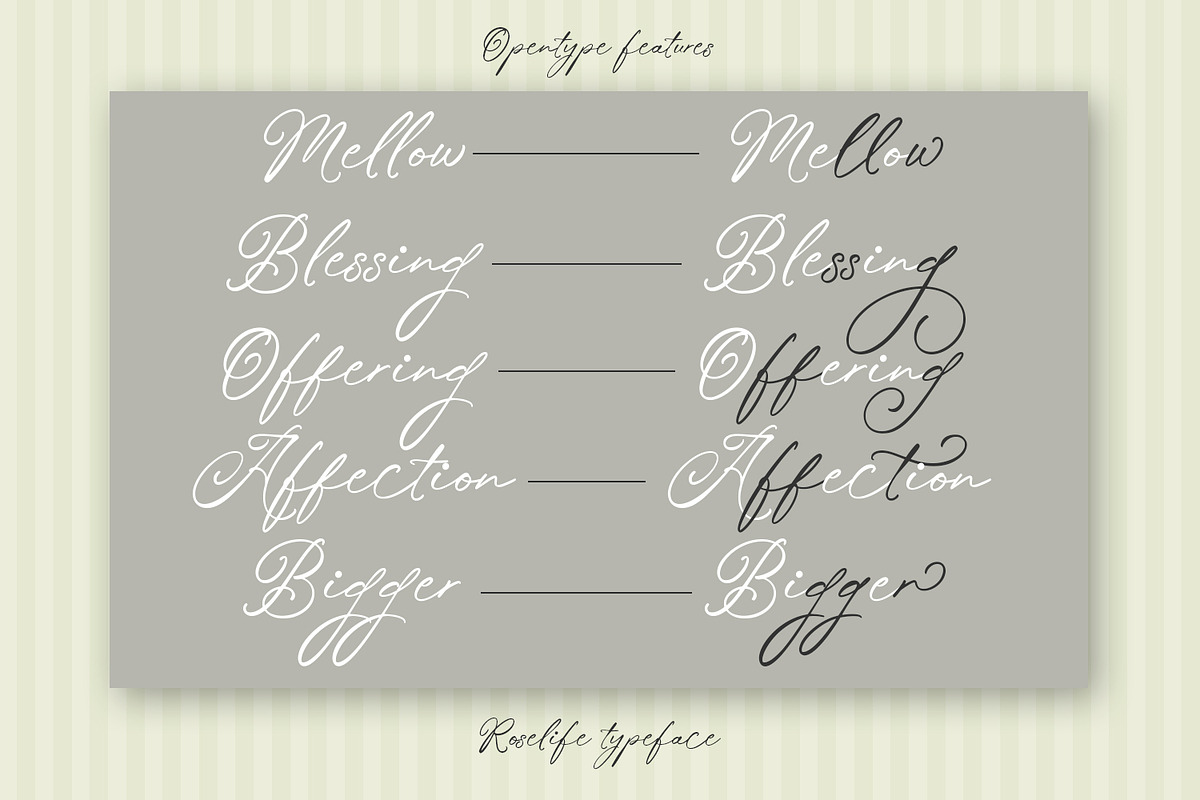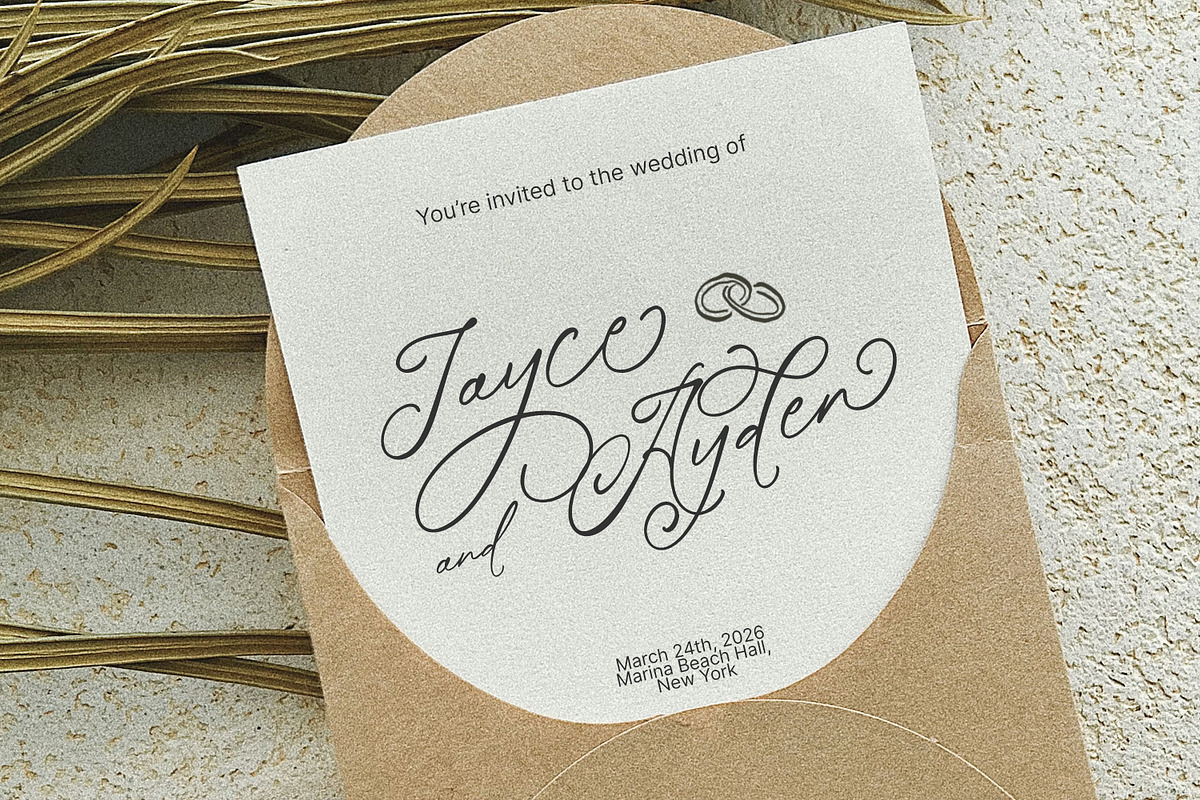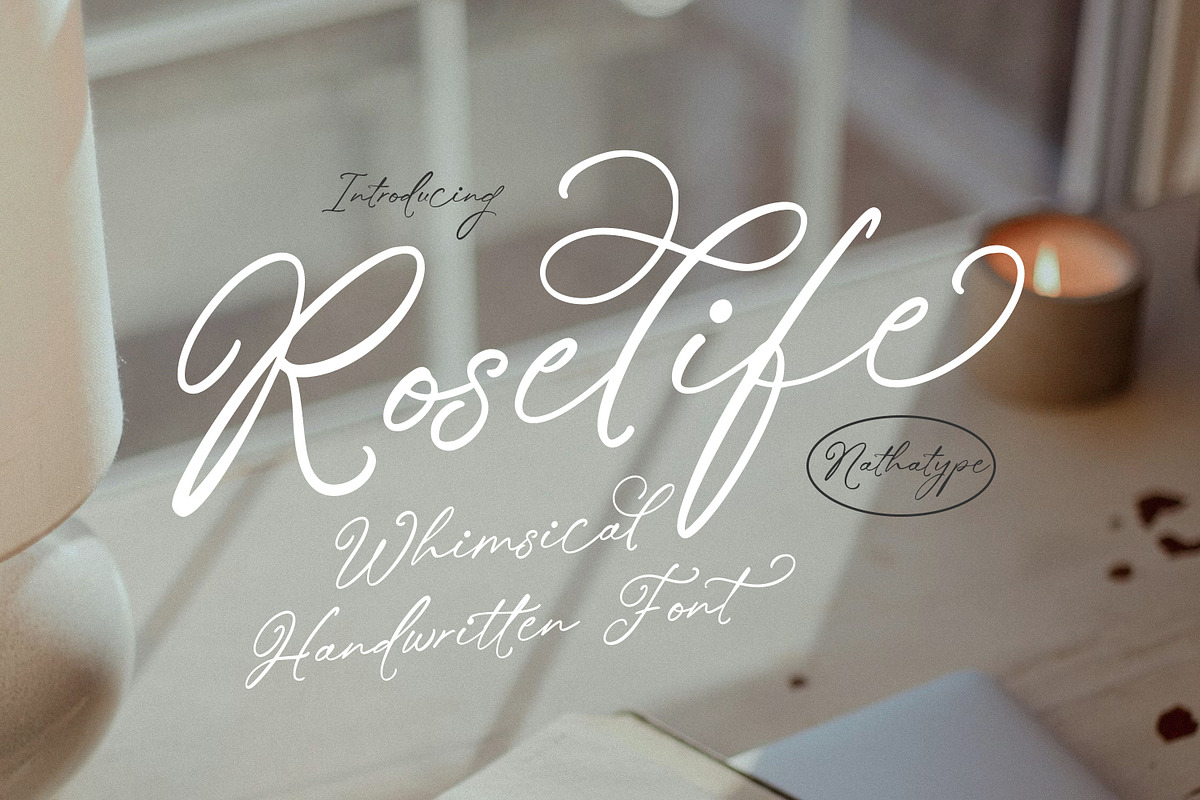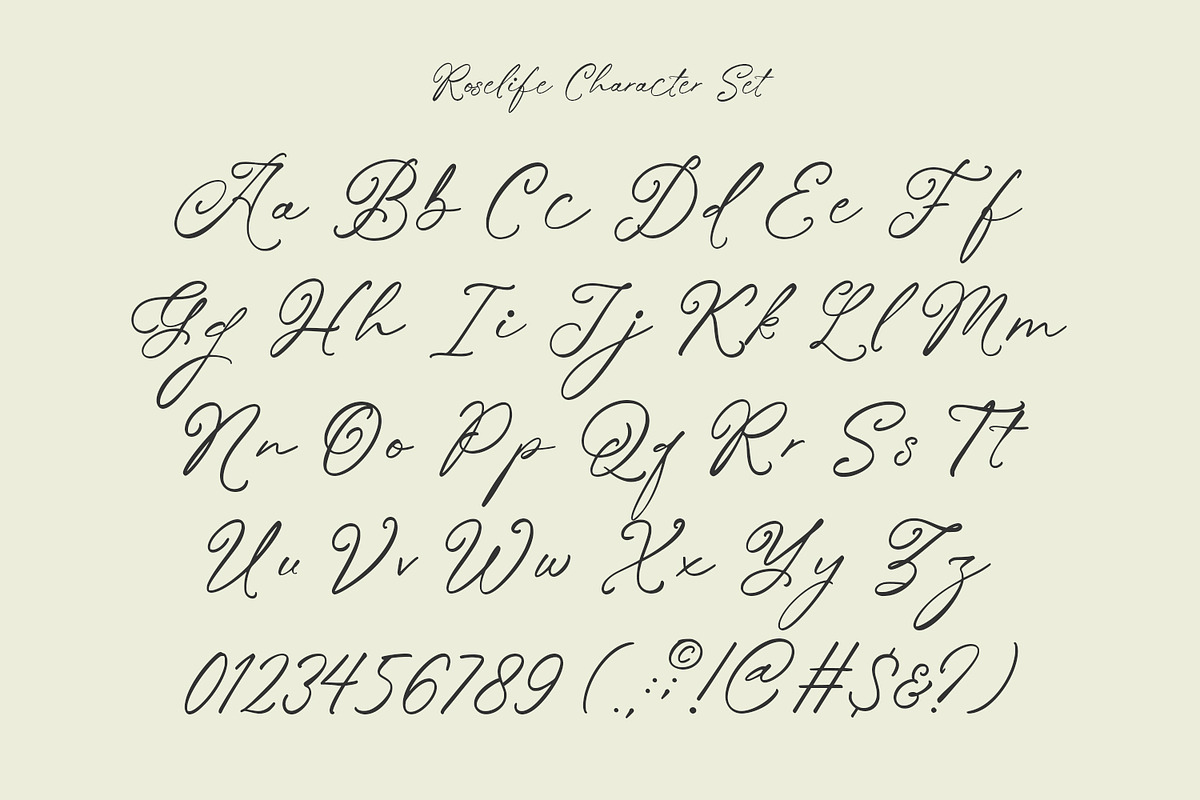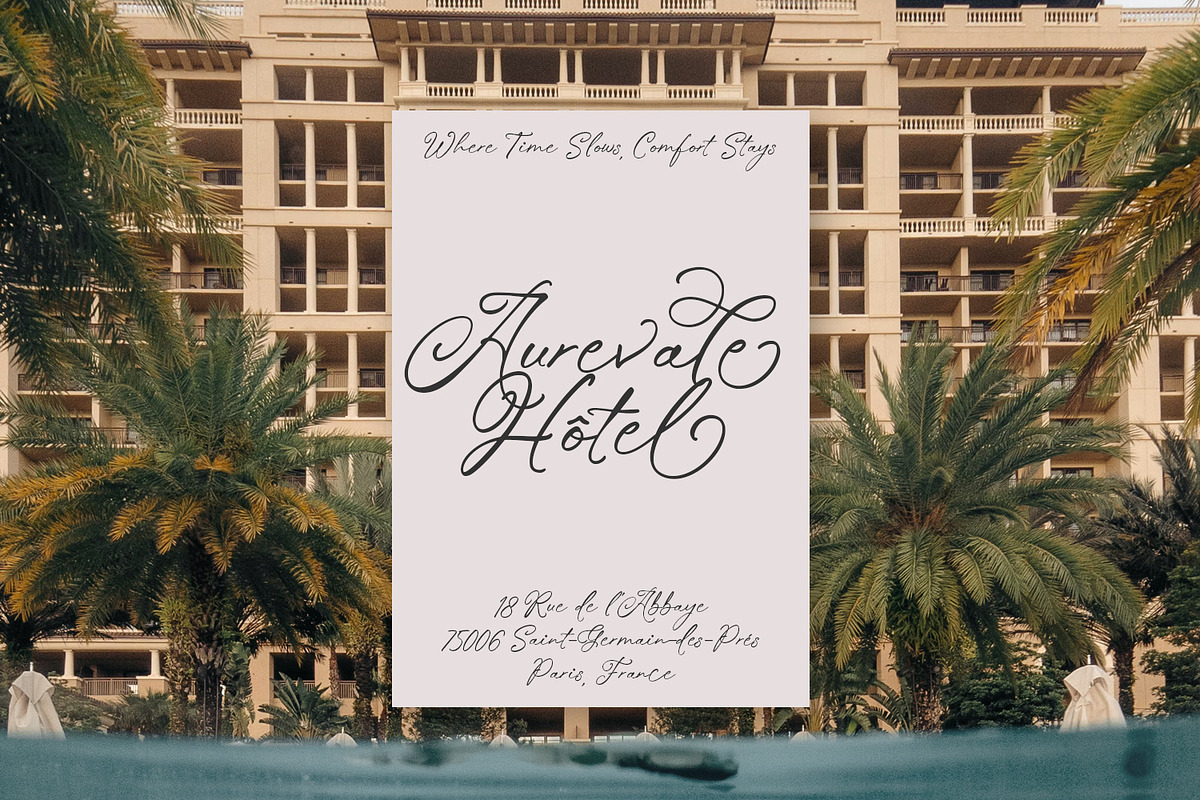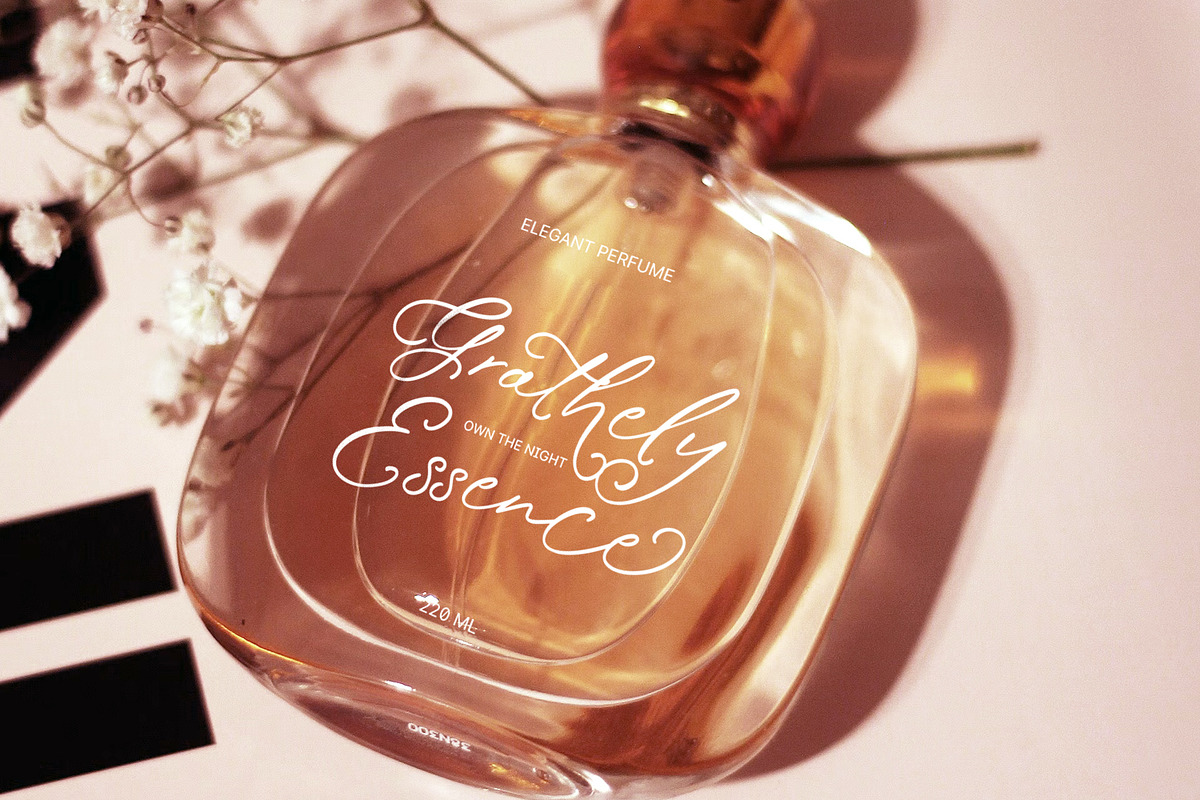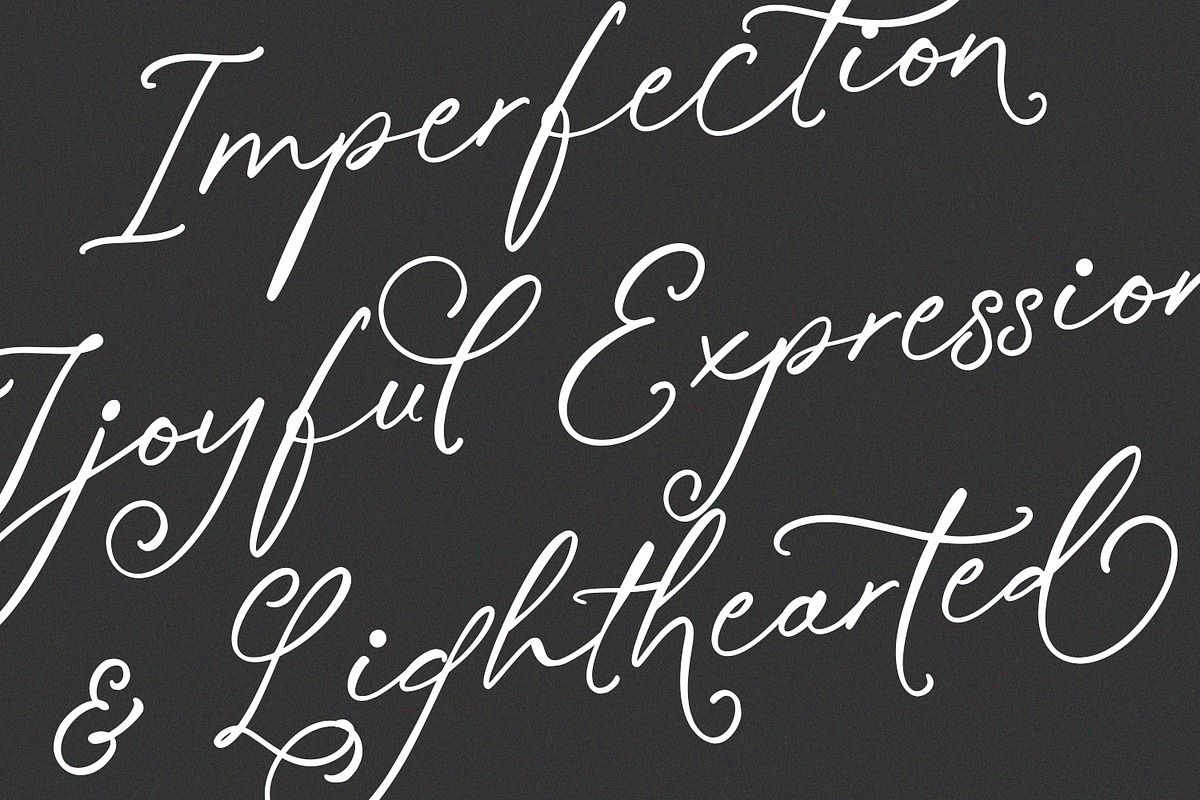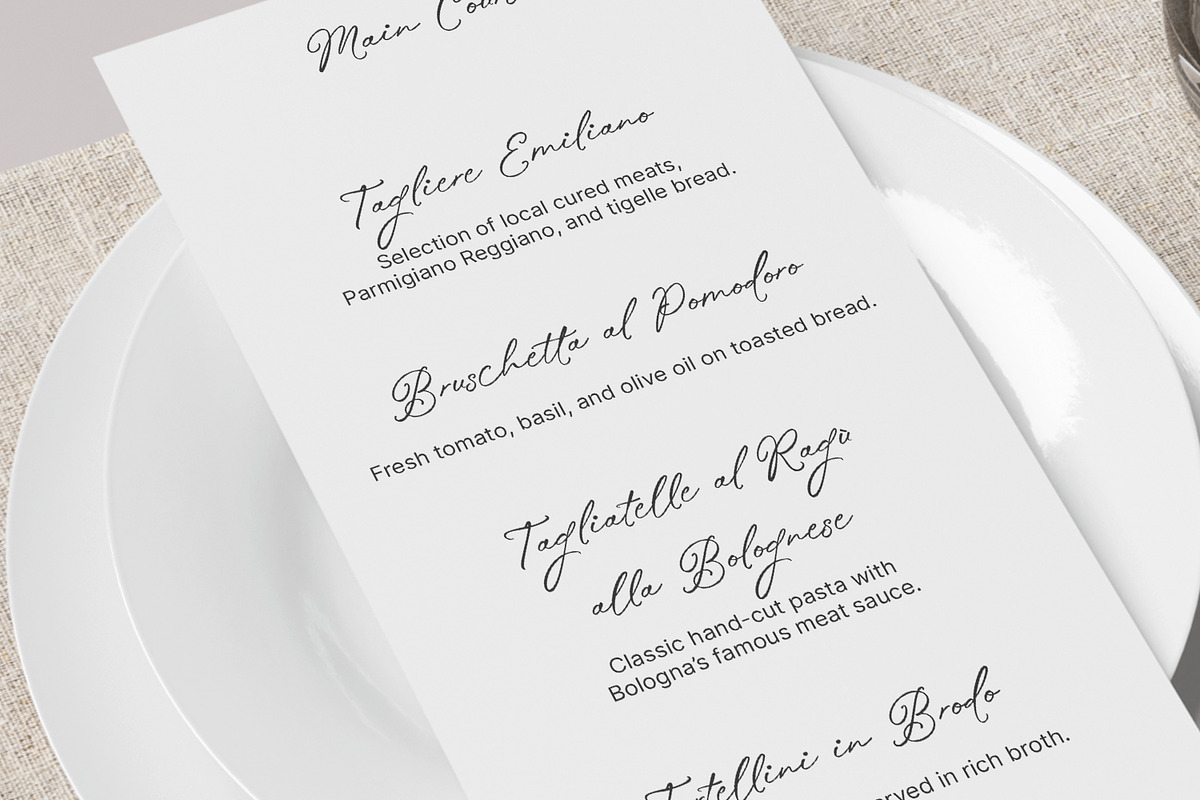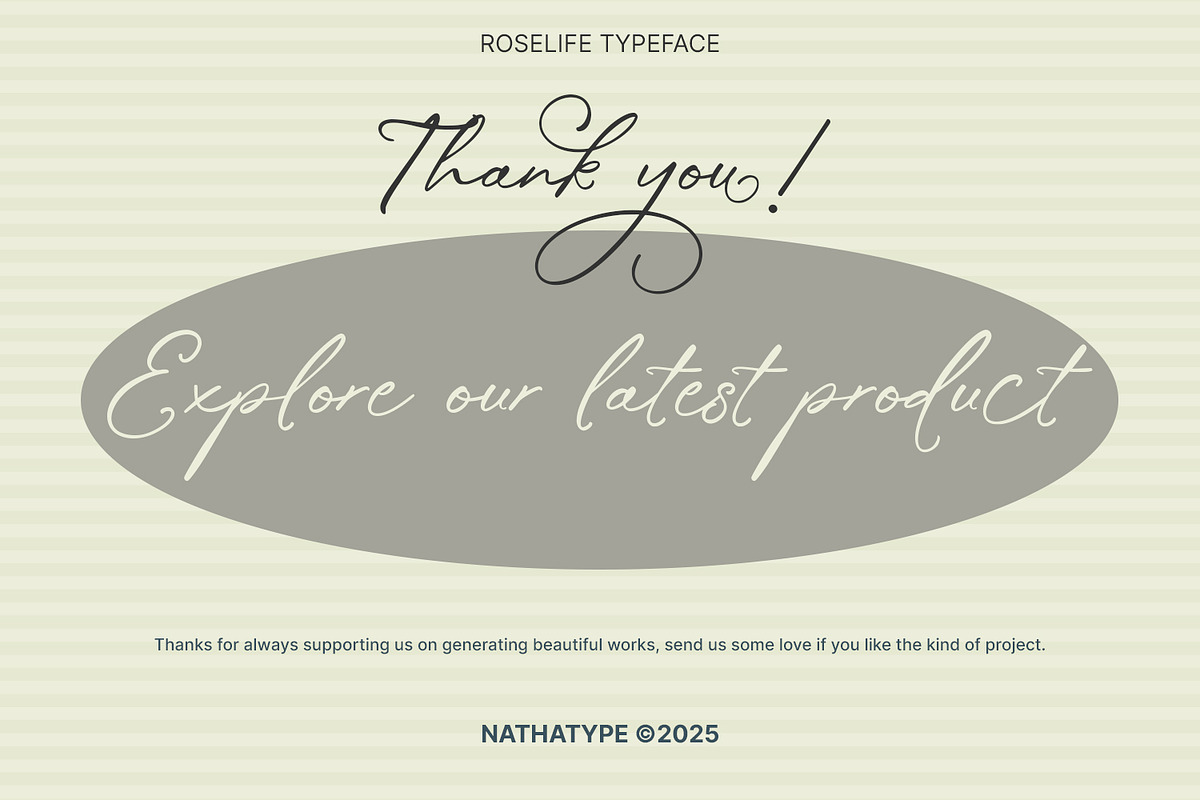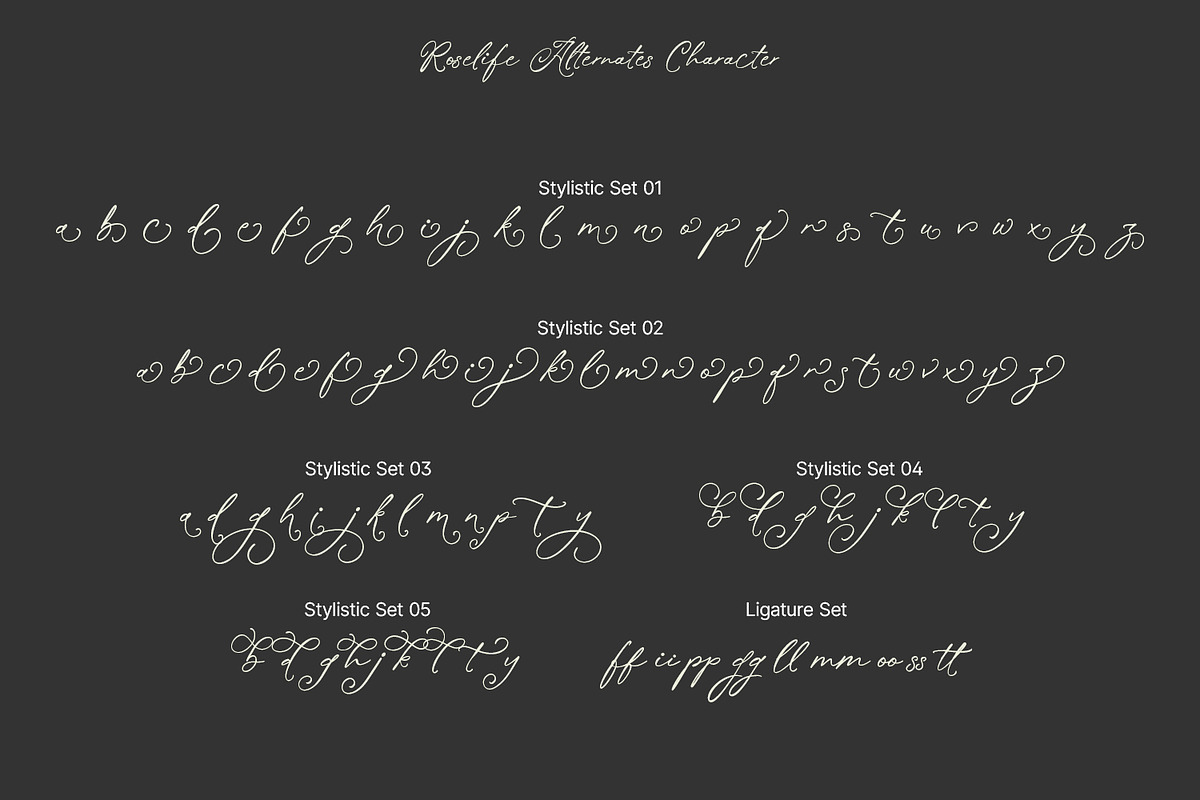
Roselife
Roselife is a delightful whimsical handwritten font. The flowing cursive structure of Roselife allows each letter to connect seamlessly, creating a soft and rhythmic movement across words. Roselife offers a beautifully balanced script style that feels natural, cohesive, and easy to read. It’s the perfect choice for designers who want a handwritten font that is both expressive and polished. In addition, enjoy the features here.
- Stylistic Sets
Roselife fits in invitations, logos, quotes, branding, posters, and many more designs. Find out more ways to use this font by taking a look at the font preview.